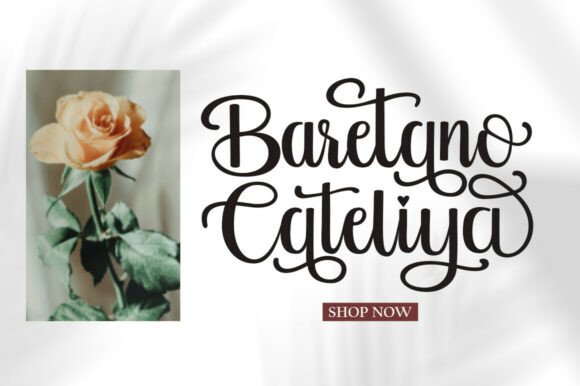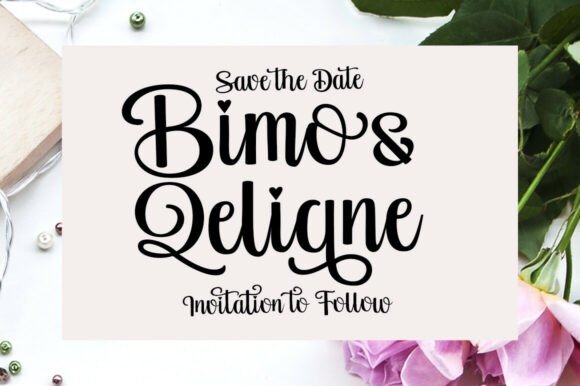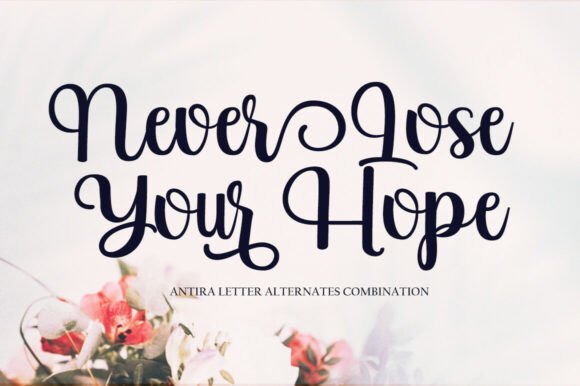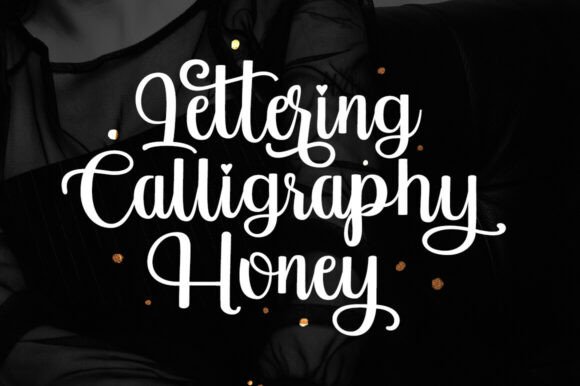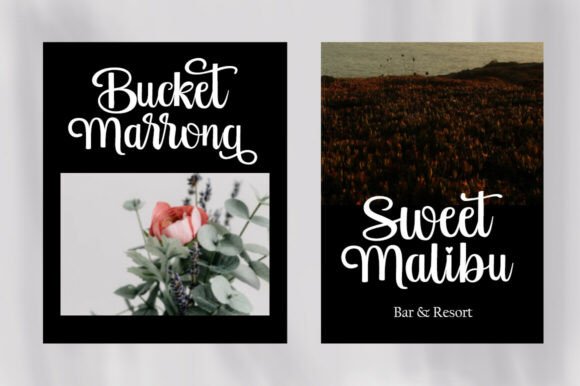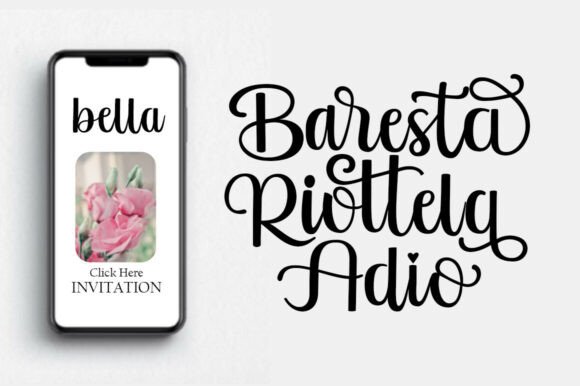
The Quest for the Perfect Font: Discovering Antiya Letter
I still remember the design project that led me to Antiya Letter. I was working on a wedding invitation suite, and my client wanted a font that exuded elegance, romance, and playfulness all at once. I scoured the internet, tried countless fonts, but nothing seemed to fit the bill. That was until I stumbled upon Antiya Letter – a modern script font that effortlessly blended sophistication with whimsy.
First Impressions: What I Love About Antiya Letter
So, what makes Antiya Letter so special? Here are a few things that immediately won me over:
- ✨ Smooth, flowing strokes that give it a luxurious feel
- ✅ Graceful letterforms with delicate swashes and heart-inspired details
- 💕 Hand-lettered style that exudes warmth and romance
- 📚 Tall, fluid ascenders and bold, confident curves for added sophistication
A Balanced Review: The Good, the Bad, and the Quirky
No font is perfect, and Antiya Letter is no exception. Here are some things to keep in mind:
- ⚠️ Some users might find the font a bit overwhelming for body text due to its ornate nature
- 🤔 Glyphs and swashes can be a bit tricky to navigate for beginners
- 👍 PUA encoding makes special characters and decorative elements easily accessible
The Story Behind Antiya Letter
While the true story behind Antiya Letter remains a mystery, it’s easy to imagine that its designer was inspired by the world of modern calligraphy. With its balanced proportions, natural rhythm, and ornate details, Antiya Letter seems to capture the essence of handwritten elegance.
| What is PUA encoding, and why is it important? | PUA (Private Use Area) encoding allows designers to access special characters and decorative elements without needing additional software. |
| Is Antiya Letter suitable for body text? | While Antiya Letter is beautiful, its ornate nature might make it better suited for headings and titles rather than body text. |